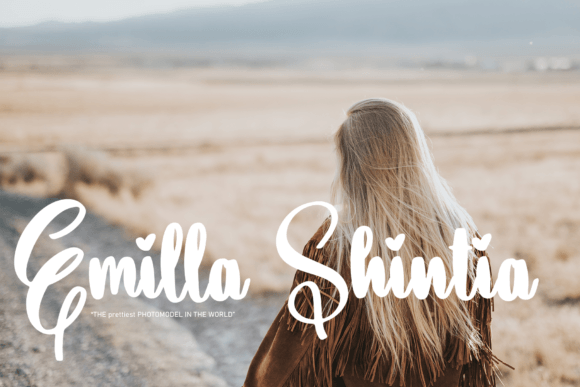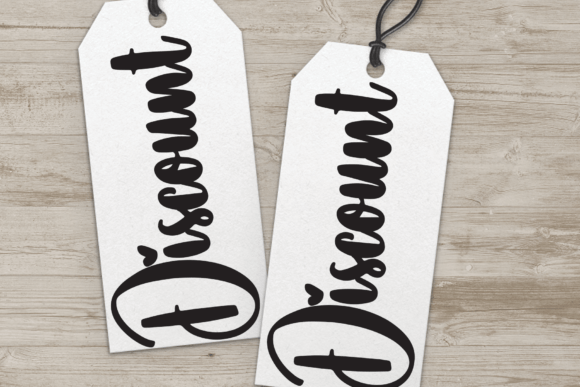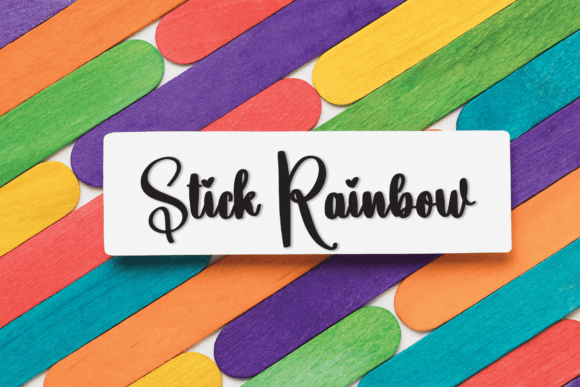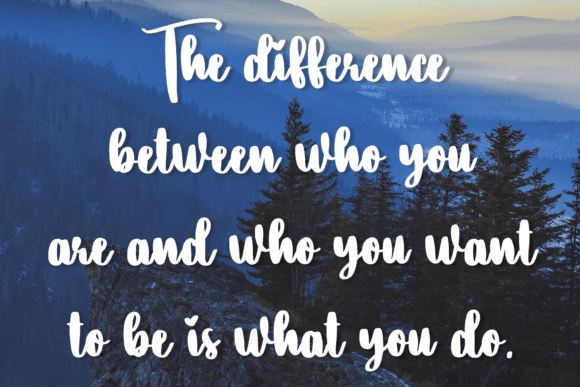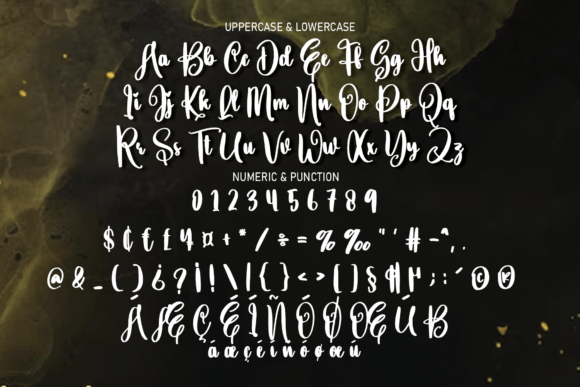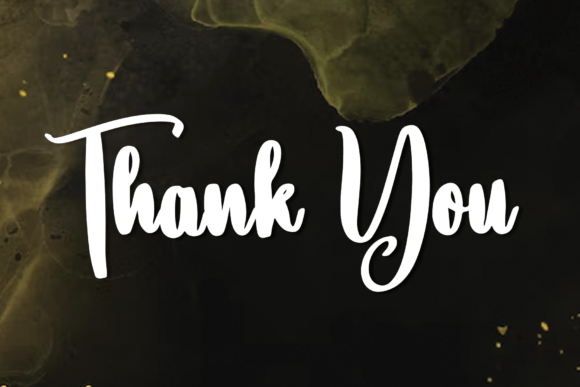
Elegant Font: Elevate Your Designs with a Stylish and Fresh Handwritten Script
Are you tired of using the same old fonts in your designs? Look no further than Elegant, a beautiful and modern handwritten script font that’s perfect for a variety of creative projects. Whether you’re a designer, crafter, or simply someone who loves to make greeting cards, Elegant has the potential to become your new favorite go-to font.
What Makes Elegant Font So Special?
Elegant is a stylish and fresh handwritten script font that’s designed to add a touch of sophistication and elegance to any design. Its unique and flowing script style makes it perfect for a wide range of applications, from digital designs and presentations to crafts and greeting cards.
One of the things that sets Elegant apart from other fonts is its versatility. It’s a highly adaptable font that can be used in a variety of contexts, from formal and professional to casual and playful. Whether you’re creating a wedding invitation, a social media graphic, or a handmade card, Elegant is the perfect choice.
Key Features of Elegant Font
So, what makes Elegant font so special? Here are just a few of its key features:
- Handwritten script style: Elegant has a beautiful, flowing script style that’s reminiscent of handwritten writing.
- Stylish and fresh: This font is modern and stylish, making it perfect for designs that need to look contemporary and on-trend.
- Highly adaptable: Elegant can be used in a wide range of contexts, from formal to casual.
- Perfect for digital design: This font is optimized for digital use, making it perfect for social media graphics, presentations, and more.
- Great for crafts: Elegant is also perfect for crafters who love to make handmade cards, scrapbook pages, and other paper crafts.
How to Use Elegant Font in Your Designs
So, how can you use Elegant font in your designs? Here are a few ideas to get you started:
- Create stunning social media graphics: Use Elegant to add a touch of elegance to your social media graphics, from Facebook posts to Instagram stories.
- Make beautiful greeting cards: This font is perfect for handmade greeting cards, whether you’re making them for special occasions or just to say hello.
- Elevate your presentations: Add a touch of sophistication to your presentations with Elegant font.
- Design gorgeous digital art: Use Elegant to create stunning digital art, from illustrations to typography.
Tips for Getting the Most Out of Elegant Font
Here are a few tips for getting the most out of Elegant font:
- Experiment with different colors: Elegant looks great in a variety of colors, so don’t be afraid to experiment and find the perfect hue for your design.
- Play with font sizes: This font looks great in a range of sizes, from large and bold to small and delicate.
- Combine with other fonts: Elegant pairs well with a variety of other fonts, so feel free to get creative and combine it with other styles.
In conclusion, Elegant font is a stylish and fresh handwritten script font that’s perfect for designers, crafters, and anyone who loves to create beautiful designs. Its versatility, adaptability, and elegant style make it a great choice for a wide range of applications, from digital designs and presentations to crafts and greeting cards.
Whether you’re looking to elevate your designs, add a touch of sophistication, or simply try something new, Elegant font is the perfect choice. So why not give it a try and see the difference it can make in your designs?